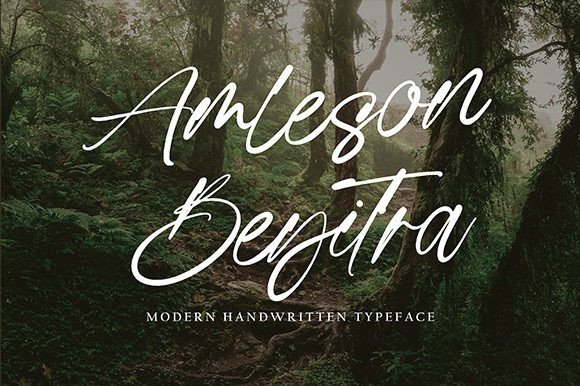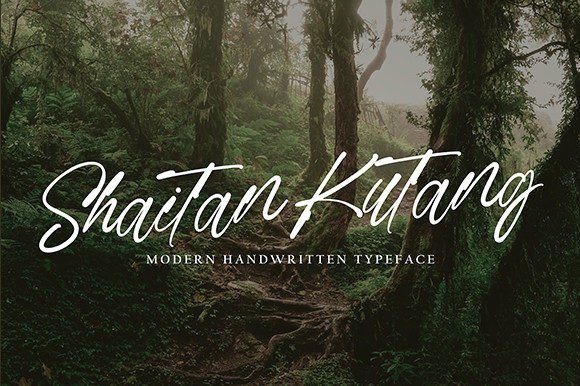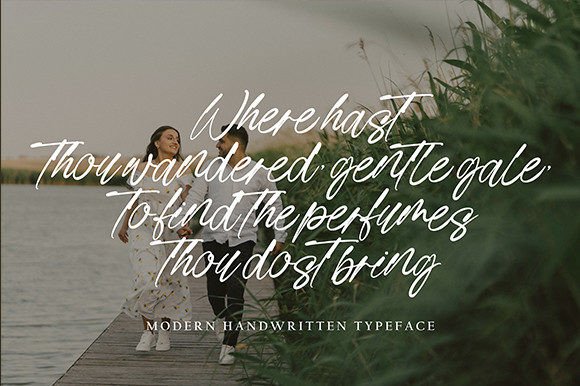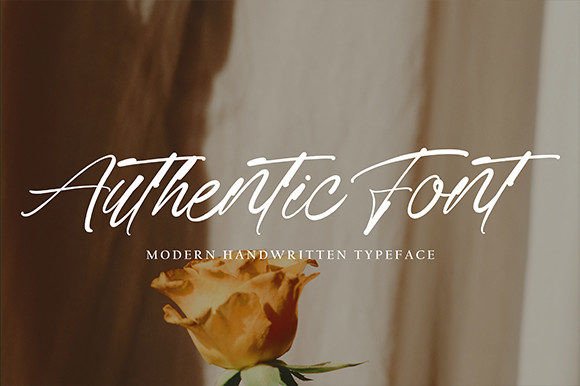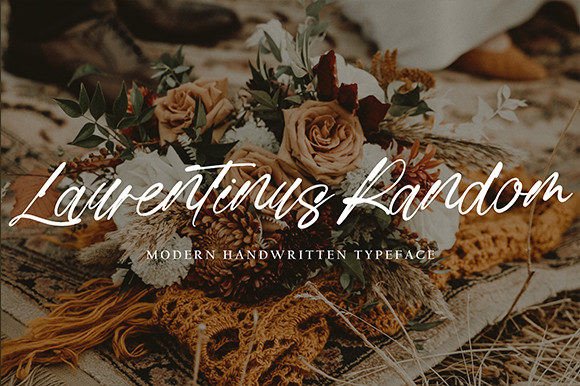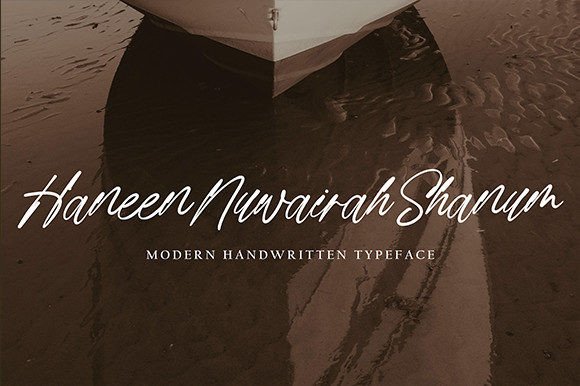
Introduction to Rockstar Hand Font
Rockstar Hand is a modern and stylish handwritten script font.
It has beautiful and well-balanced characters and as a result, it matches a wide pool of designs Add it to your most creative ideas and notice how it makes them come alive.